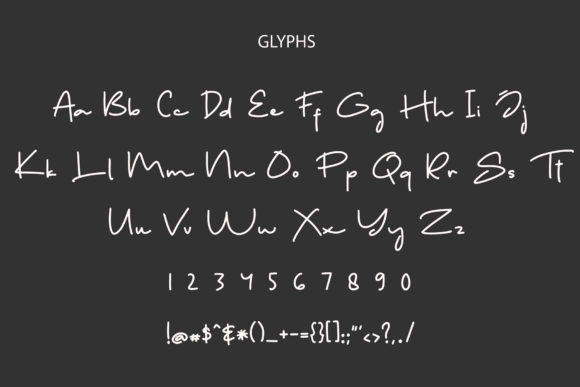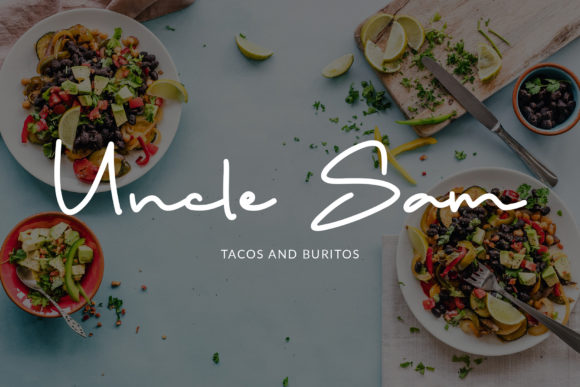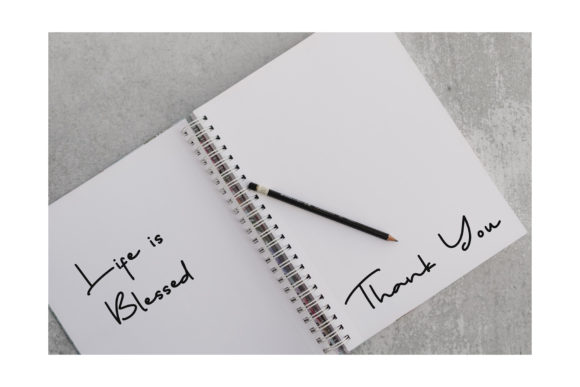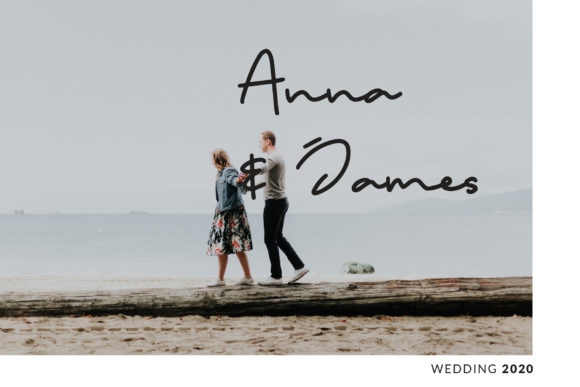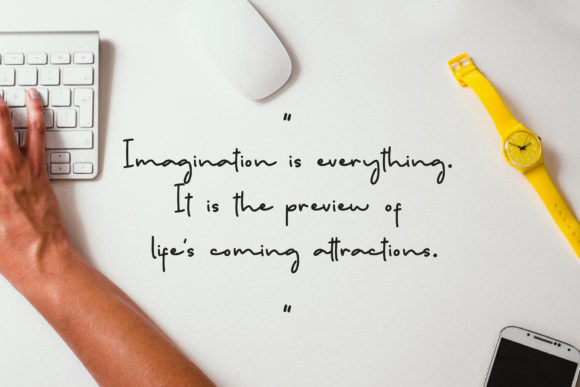
Introducing Gelora Font: The Perfect Blend of Cute and Modern Handwritten Style
In the world of typography, fonts play a crucial role in conveying the tone and personality of a brand or project. For designers and crafters looking for a unique and eye-catching font, Gelora Font is an excellent choice. This cute and modern handwritten font, created using a brush pen, is perfect for a wide range of applications, from logos and branding to social media and DIY projects.
What Makes Gelora Font Stand Out?
Gelora Font boasts a clean and quirky design that sets it apart from other fonts. Its unique blend of modern and handwritten elements makes it an ideal choice for those looking to add a personal touch to their projects. The font’s clean lines and smooth curves create a visually appealing effect that is sure to capture the attention of your audience.
Key Features of Gelora Font
- Cute and Modern Design: Gelora Font’s adorable and contemporary design makes it perfect for a wide range of applications, from logos and branding to social media and crafty DIY projects.
- Handwritten with a Brush Pen: The font’s handwritten style, created using a brush pen, adds a touch of warmth and personality to any project.
- Clean and Quirky: Gelora Font’s clean lines and quirky design elements make it a standout choice for designers and crafters looking for a unique font.
- Versatile: This font is suitable for a wide range of applications, including logos, branding, social media, and DIY projects.
Why Choose Gelora Font?
There are many reasons why Gelora Font is an excellent choice for designers and crafters. Here are a few:
- Easy to Read: Gelora Font is clear and easy to read, making it perfect for body text and captions.
- Highly Versatile: The font’s unique design makes it suitable for a wide range of applications, from formal to informal projects.
- Unique and Eye-Catching: Gelora Font’s quirky design elements make it a standout choice for designers and crafters looking to add a personal touch to their projects.
How to Use Gelora Font in Your Projects
Gelora Font is an excellent choice for a wide range of projects, including:
- Logos and Branding: Use Gelora Font to create a unique and memorable logo for your brand.
- Social Media: Add a personal touch to your social media posts and stories with Gelora Font.
- Crafty DIY Projects: Use Gelora Font to add a touch of personality to your crafty DIY projects, such as handmade cards and invitations.
Tips for Pairing Gelora Font with Other Fonts
Pairing Gelora Font with other fonts can create a unique and visually appealing effect. Here are a few tips:
- Pair with a Serif Font: Pair Gelora Font with a serif font, such as Arial or Times New Roman, to create a classic and elegant look.
- Pair with a Script Font: Pair Gelora Font with a script font, such as Pacifico or Great Vibes, to create a modern and elegant look.
In conclusion, Gelora Font is a unique and versatile font that is perfect for designers and crafters looking to add a personal touch to their projects. Its clean and quirky design makes it suitable for a wide range of applications, from logos and branding to social media and DIY projects. With its ease of use and highly versatile design, Gelora Font is an excellent choice for anyone looking to create a visually appealing and engaging project.